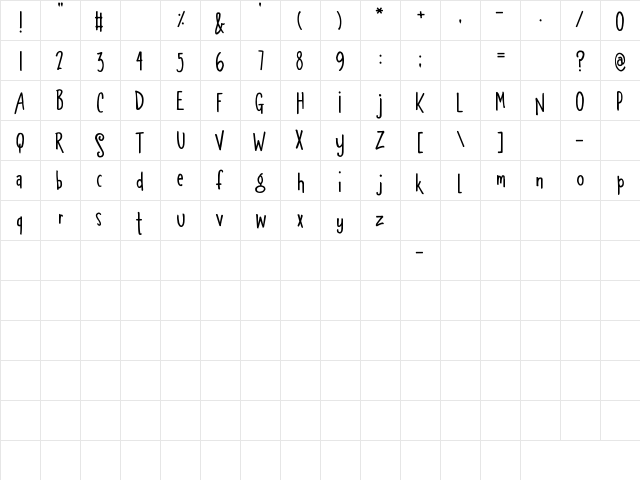
2Peas Beef Broccoli 2Peas Beef Broccoli Font Preview
Design Context for 2Peas Beef Broccoli Typeface
2Peas Beef Broccoli is a composed and adaptable typeface that performs quietly and consistently across a wide range of design contexts.
Pro Tip: Use 2Peas Beef Broccoli in both headline and body roles to test its range before committing to a single application.